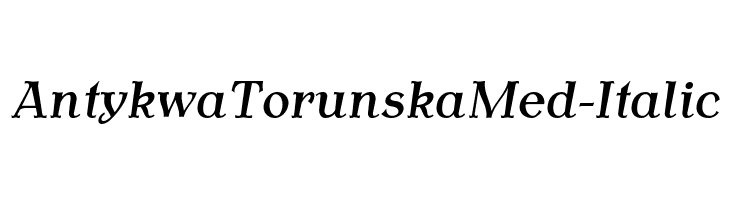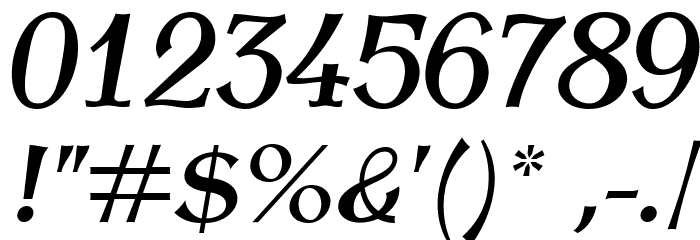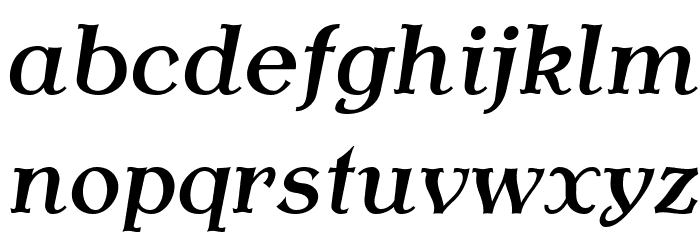
AntykwaTorunskaMed-Italic Font
AntykwaTorunskaMed-Italic Description
This font features a classic serif style with elegant, flowing lines and a distinct italic slant. The characters exhibit a medium contrast between thick and thin strokes, adding to its sophisticated appearance. The serifs are pronounced, providing a traditional and formal feel. The overall design is balanced, with a slight inclination that enhances readability while maintaining an artistic flair. The numerals are consistent with the alphabetic characters, ensuring uniformity across different text elements. Special characters are well-integrated, maintaining the font's cohesive aesthetic.
An elegant serif font with an italic slant and medium contrast, ideal for formal text from Uncategorized fonts.
- Proposed Projects: Suitable for book covers, formal invitations, editorial design, and branding materials that require a touch of elegance.
- Overall Style: Classic